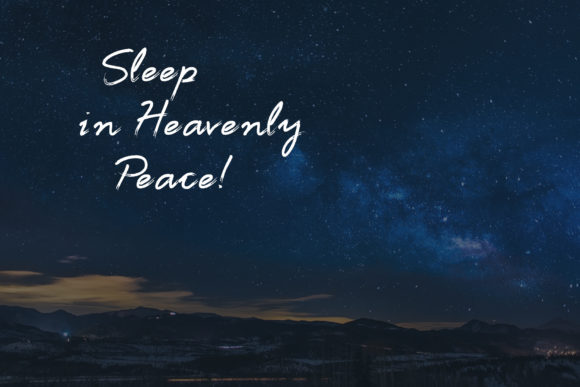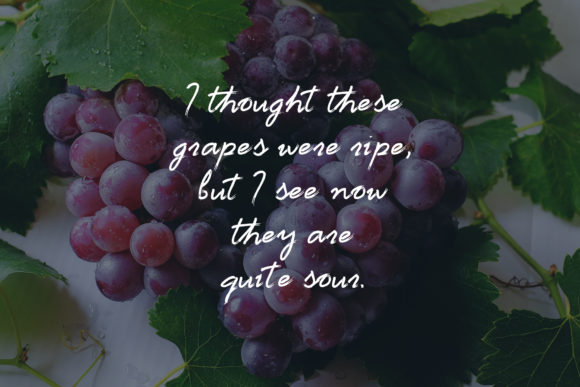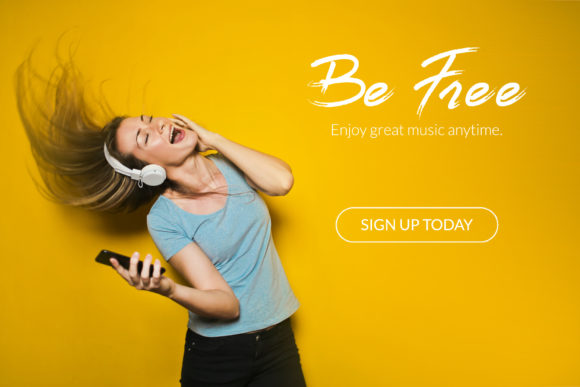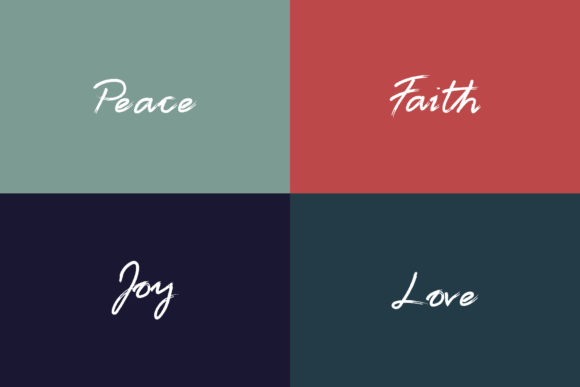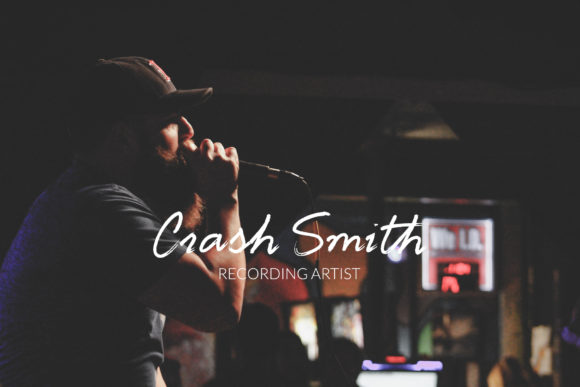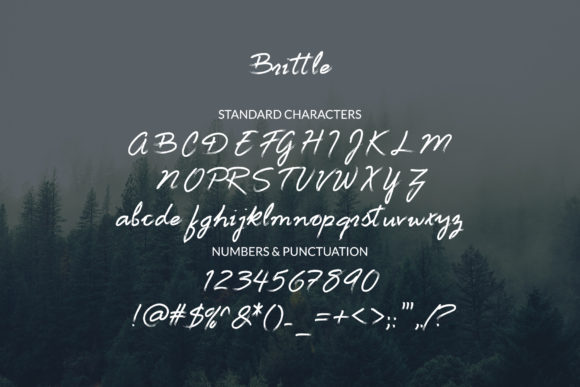
Brittle Font
About Brittle Font
The Brittle is inspired by nature walks: the awesome sound of twigs breaking under your feet as you walk through nature trails. It can be used for branding, advertising, poster design, logotypes, book covers, magazines, packaging, blogs, quote designs and more.